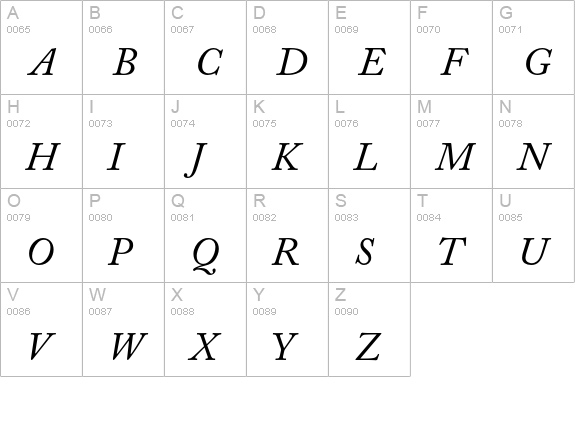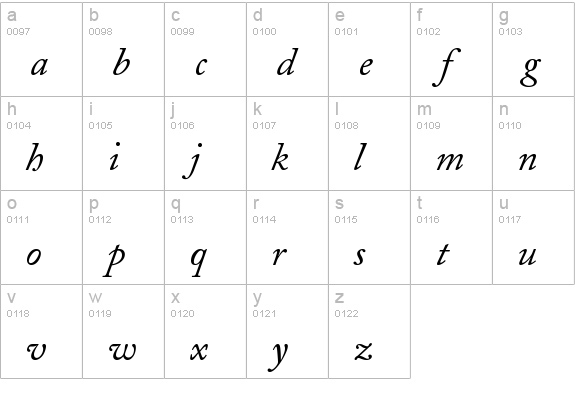
Adobe Caslon Italic Font Details
Adobe Caslon Italic is a distinctive, italic variant in the Adobe typeface family \xE2\x80\x94 well suited to design and typography projects.
Adobe Caslon Italic is a timeless and elegant font that exudes sophistication and class. The graceful slant and delicate curves of the italicized characters add a touch of refinement to any design project. With its roots dating back to the 18th century, Adobe Caslon Italic has stood the test of time and remains a popular choice among designers and typographers. What sets Adobe Caslon Italic apart is its versatility and readability, making it suitable for a wide range of applications such as editorial design, branding, and advertising. Whether used for body text or headlines, this font conveys a sense of tradition and craftsmanship that resonates with audiences. Best of all, Adobe Caslon Italic is available for free download at FontsMarket.com. This means that designers can access this premium font without any cost, making it an ideal choice for projects with budget constraints. Don't miss out on the opportunity to enhance your designs with the timeless beauty of Adobe Caslon Italic - download it today and elevate your typographic creations to new heights.